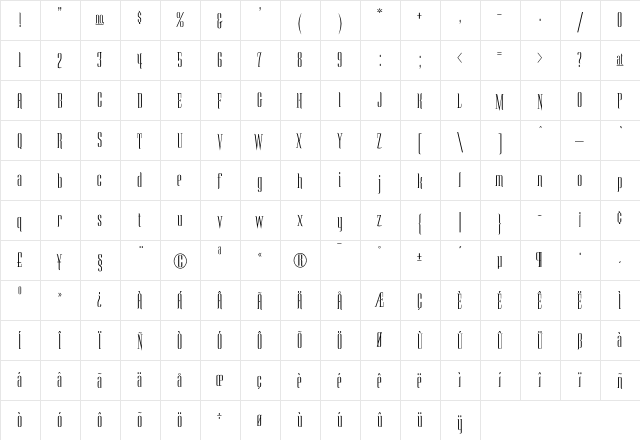
Malaise Tall Font Preview
Malaise Tall
Malaise Tall Font Details
Design Context for Malaise Typeface
Malaise offers clean, dependable letterforms without strong stylistic allegiance, making it a practical choice for designers who need flexibility.